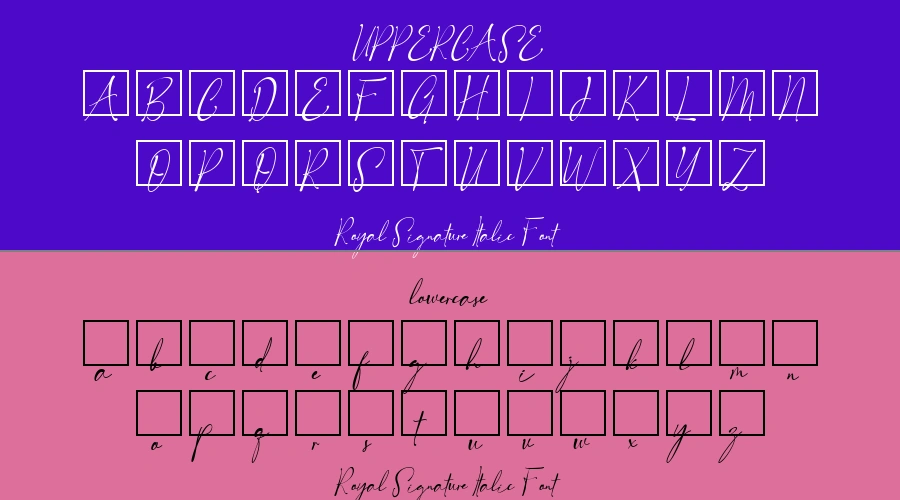
About Royal Signature Italic Font
Designed with precision, Royal Signature Italic Font merges graceful transitions with emotional connection in every character. This versatility makes it particularly effective for product packaging, where distinctiveness and creative impact directly impact communication quality. Each letterform demonstrates meticulous craftsmanship.
Technical excellence shines through elements like angled joins and ordinals, enhancing typographic versatility. In packaging settings, Royal Signature Italic Font proves its worth through superior impact retention. The thoughtful execution of tail length and lifestyle alignment ensures professional results.